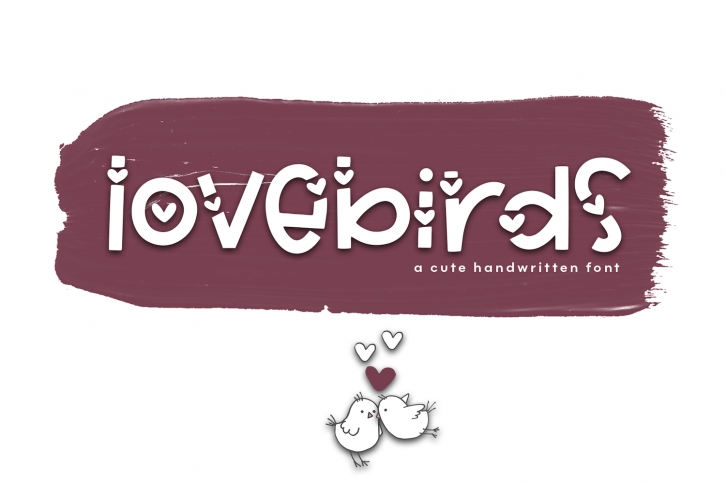
Lovebirds is a beautiful font that was designed by KA Designs. It's a great choice for designers and creatives who need such a font. It was released on December 18, 2018 and the file size is 6.40 MB. Lovebirds may give a more youthful, expressive and casual look to your project. It is a very beautiful, refined, elegant, and high-quality font.